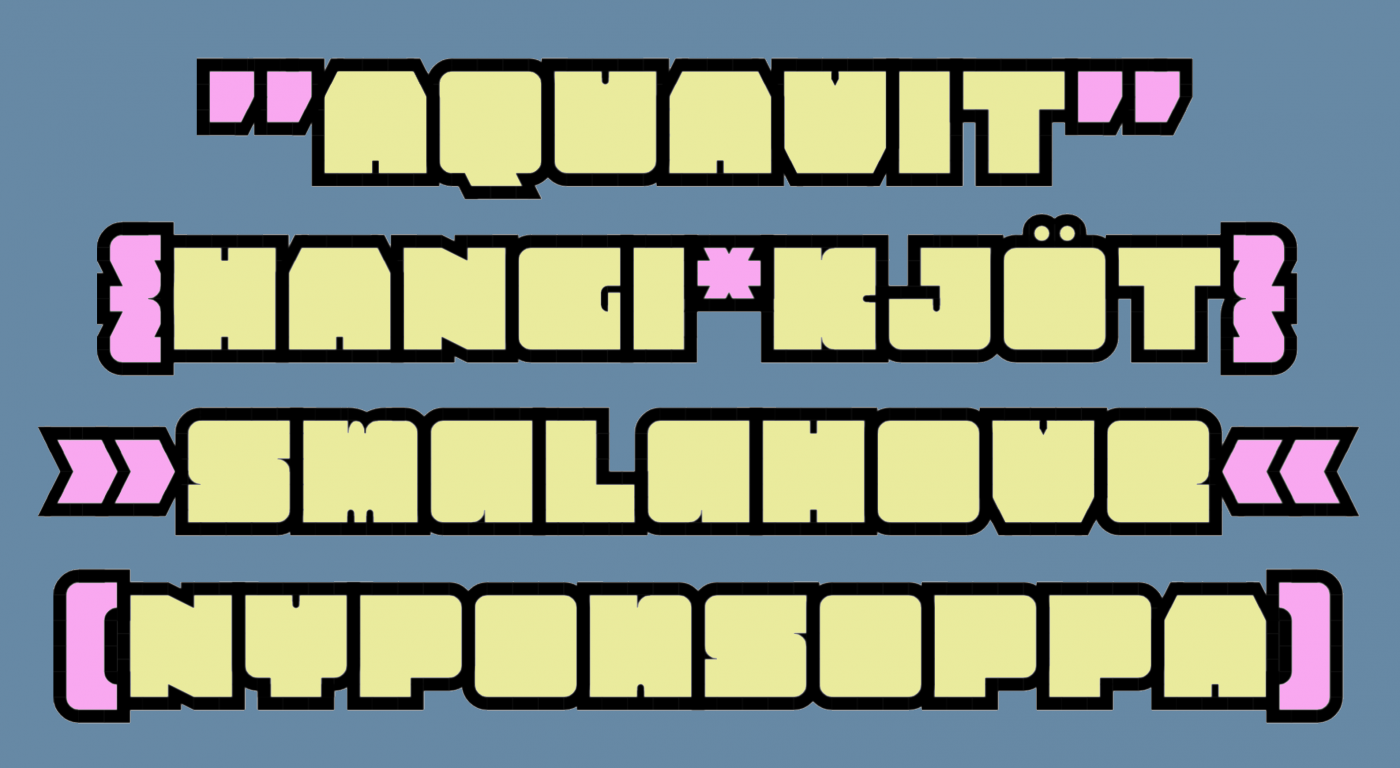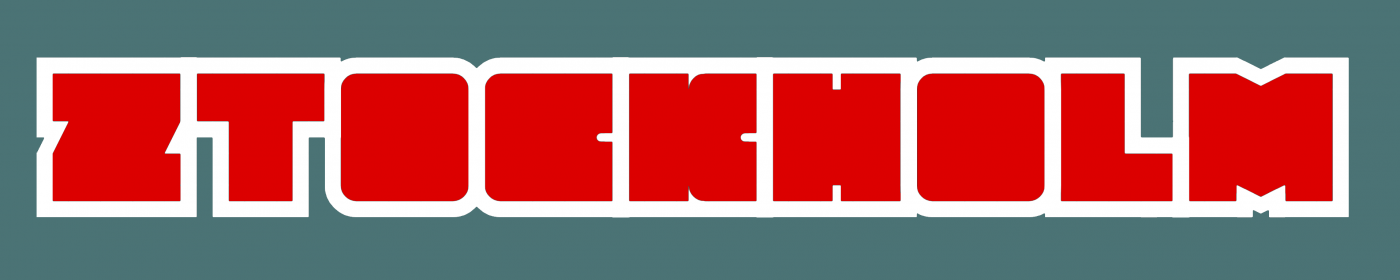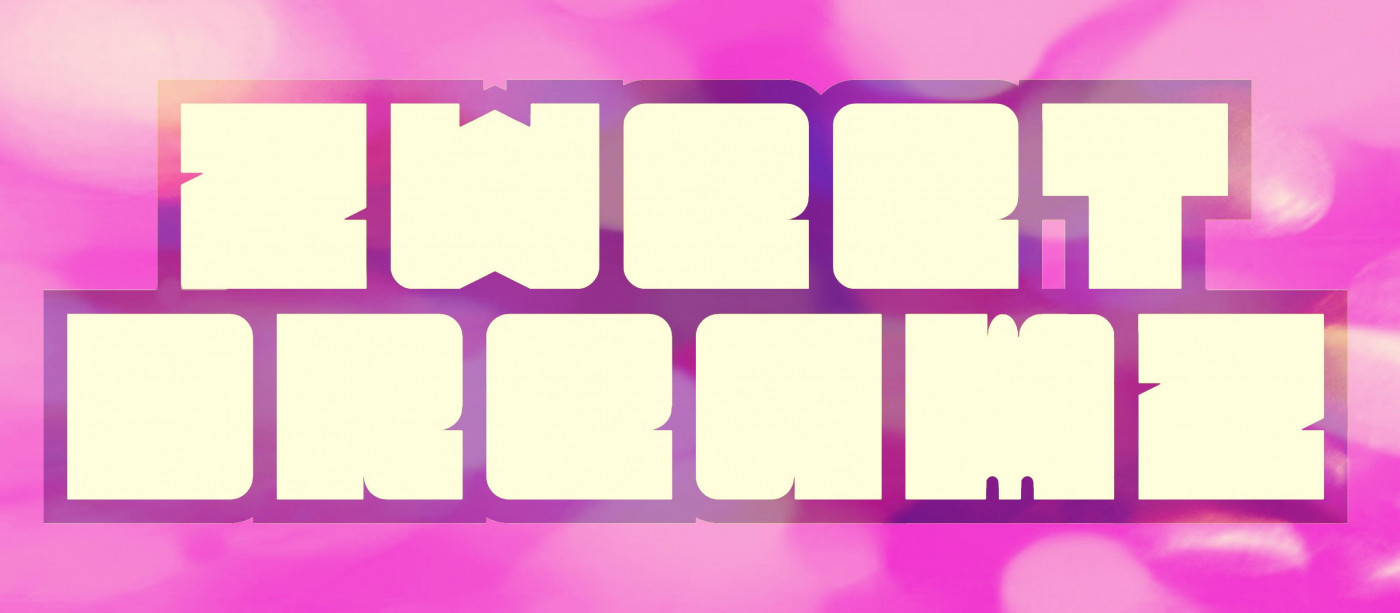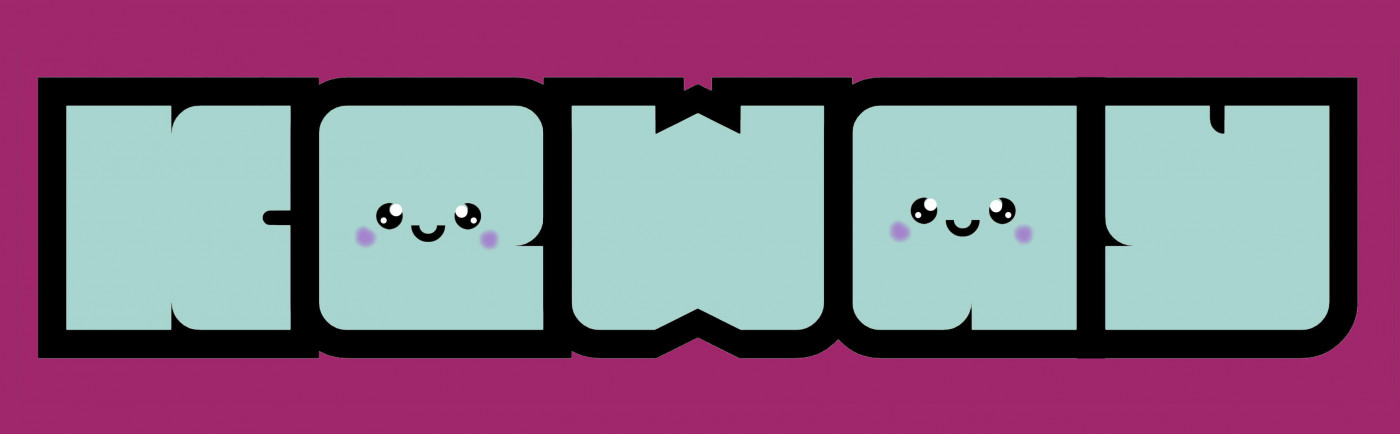
Unicase font with a handful of alternates on the lowercase zone.
@elmoyenique - Another well-deserved Top Pick, Maestro. I love how this chunky design has the teeniest, tiniest hints of minute detail, which makes all the difference. :^)
@elmoyenique Hello, i like it but i think you should update the tilde because it looks like A with macron glyph that is in the Latin Extended A. Can you change the tilde? Please? Also happens the A with tilde glyph in zcell eYe/FS, is like the A with macron.
I wonder if a filled in version (that has the same metrics as this one so the two coloring looks good) is doable?
@TypoMan Foundry: I'll think about it, but keep in mind that the macron A is a glyph used in few languages, and in my opinion, confusion will be rare. If you want, you can try another solution. Thanks.
What about this new tilde? This can be a new solution?
Nice work! I have been working on a similar outlined typeface myself but with more rounded corners.
You can consider making the legs of 'J' and 'L' to have wider strokes (as shown in red) in order to accommodate the puffiness that's present in the rest of the character set. That's what I learned when I was tweaking my own typeface.
Excellent. I like how the diacritics are embedded in the outline.
Nice and chubby outline font. Not monospaced: I'm glad you didn't squeeze the W to fit into the same space as the I. The spacing is -1 brick; the adjacent letters slightly overlap. The diacritical marks are pretty. I would only make the cedilla a bit smaller. The curly brackets are my favourites. The whole set has a kawaii aesthetic and may benefit from a cute font name to reflect that. 10/10
@Maestro Frodo7: Thank you so much for your kind words about this little font. I'll also accept your suggestion to change its name (I initially thought of Stockholm because of its association with snow and buildings). From now on, it will be known as "zweetdreamz" ("are made of this"... hehehe). I'll save the old name for another time. A billion thanks!